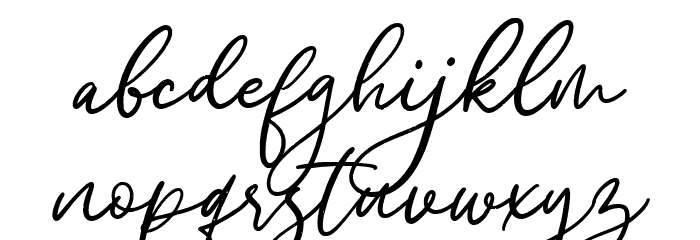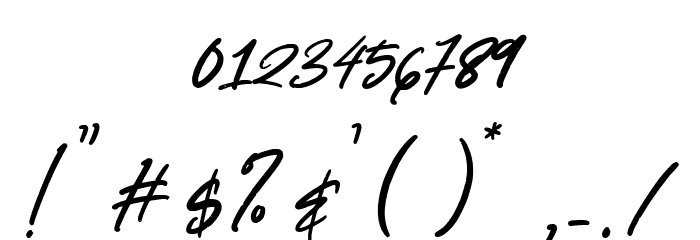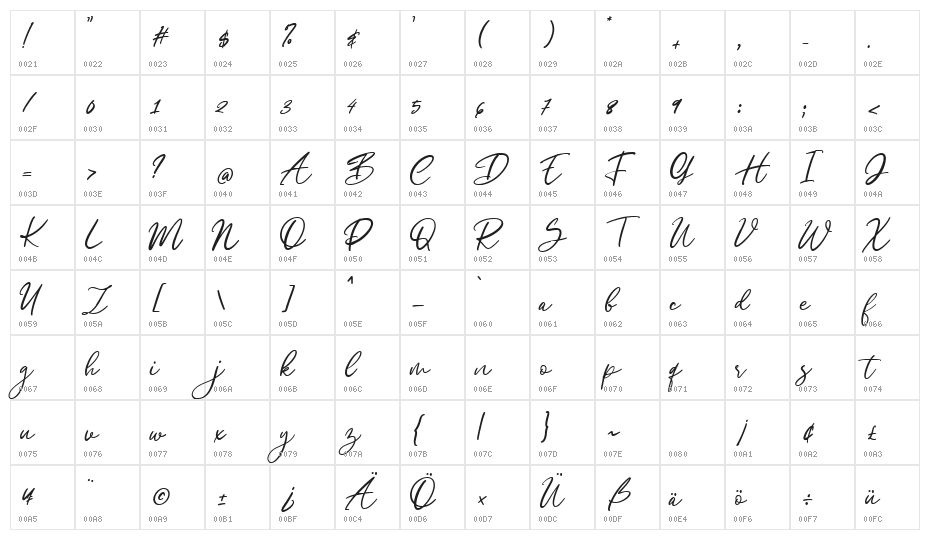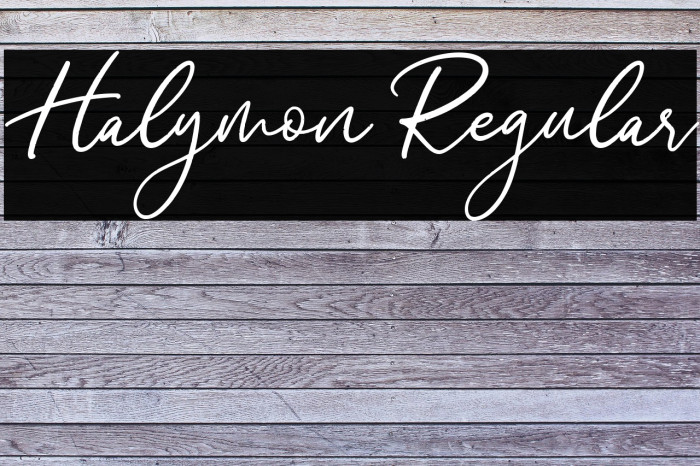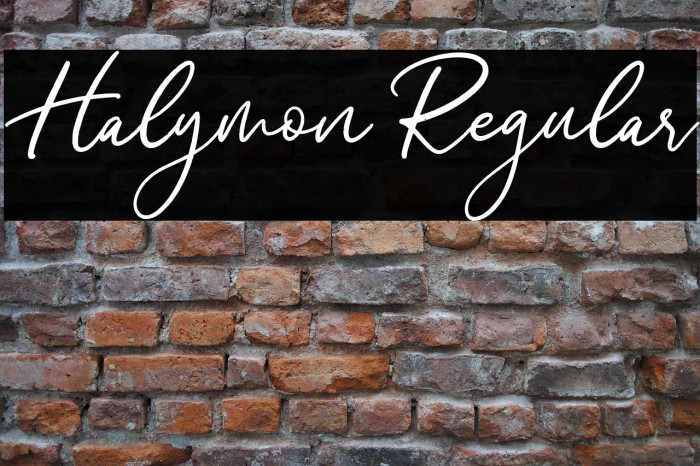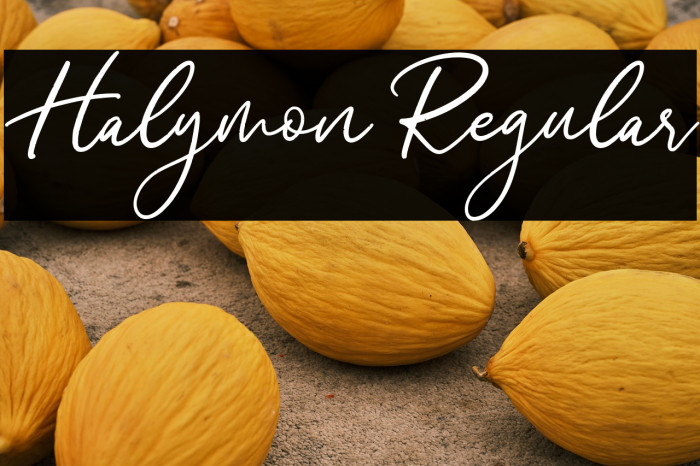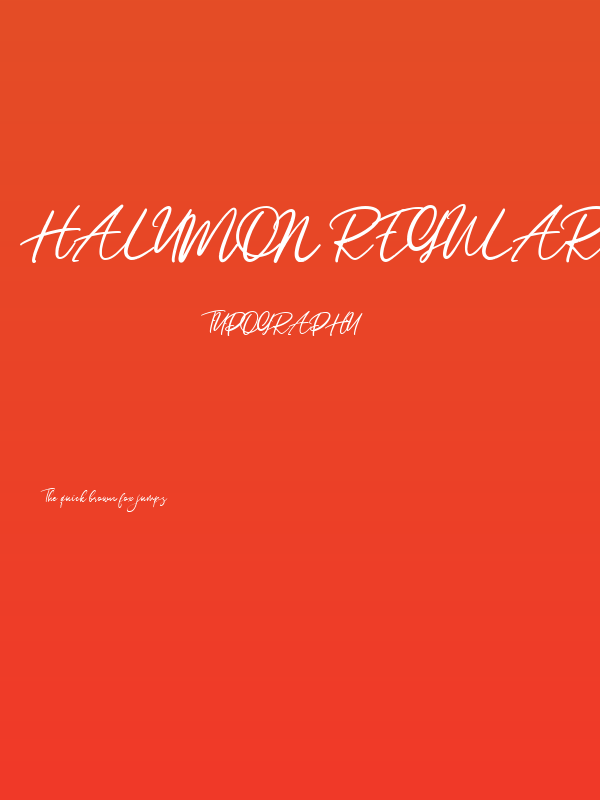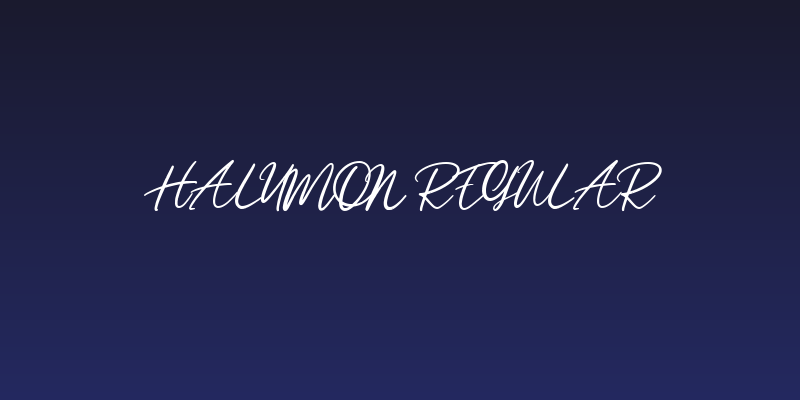
Halymon Regular Font
This font features an elegant and flowing script style, characterized by its fluid, cursive letterforms. The uppercase letters exhibit a graceful and sophisticated appearance, with smooth curves and connected strokes that create a sense of continuity and motion. The lowercase letters maintain this fluidity, offering a harmonious blend of loops and swashes that enhance its decorative appeal. The numerals are consistent with the script style, providing a cohesive look across all characters. Special characters are designed with the same attention to detail, ensuring they complement the overall aesthetic. This font exudes a sense of elegance and refinement, making it suitable for projects that require a touch of sophistication.
An elegant and flowing script font with graceful, cursive letterforms.
- Font: Halymon Regular
- Proposed Projects: Ideal for wedding invitations, elegant branding, greeting cards, and upscale packaging.
- Category: Script
- Character Spacing: Tight
- Overall Style: Elegant
- Use Case: Logos, Invitations, Decorative text